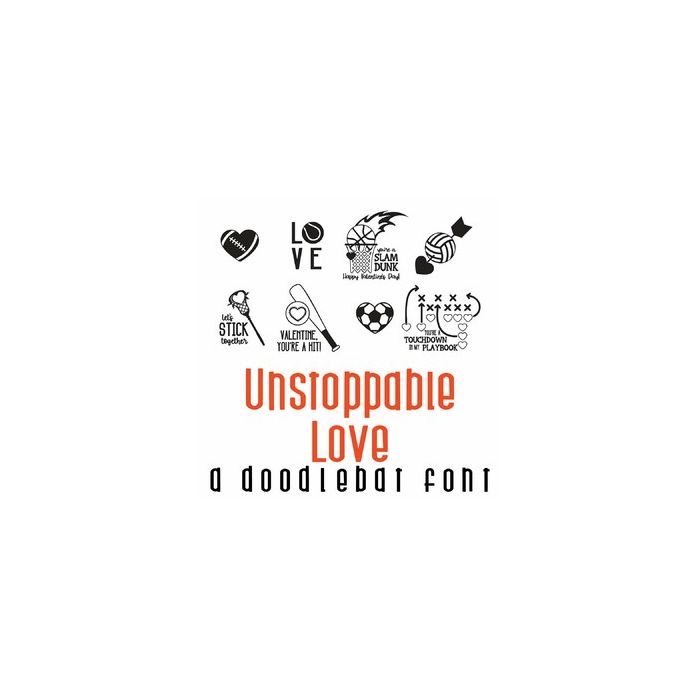
This fun doodlebat font features 26 sports-themed Valentine images. Perfect for cards, crafts, gifts, decor, planner stickers, scrapbook pages and more!